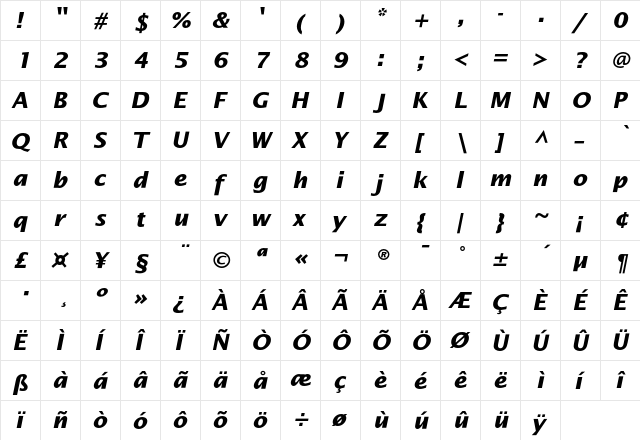
LucidaSansEF BoldItalic
Design Context for LucidaSansEF Typeface
LucidaSansEF is a composed and adaptable typeface that performs quietly and consistently across a wide range of design contexts. The dynamic lean of this cut emphasises speed and emphasis in any layout. Its bold stroke weight gives it real presence on the page.
Pro Tip: Use LucidaSansEF for emphasis, pull quotes, and subheadings where its slanted energy can add rhythm to the layout.